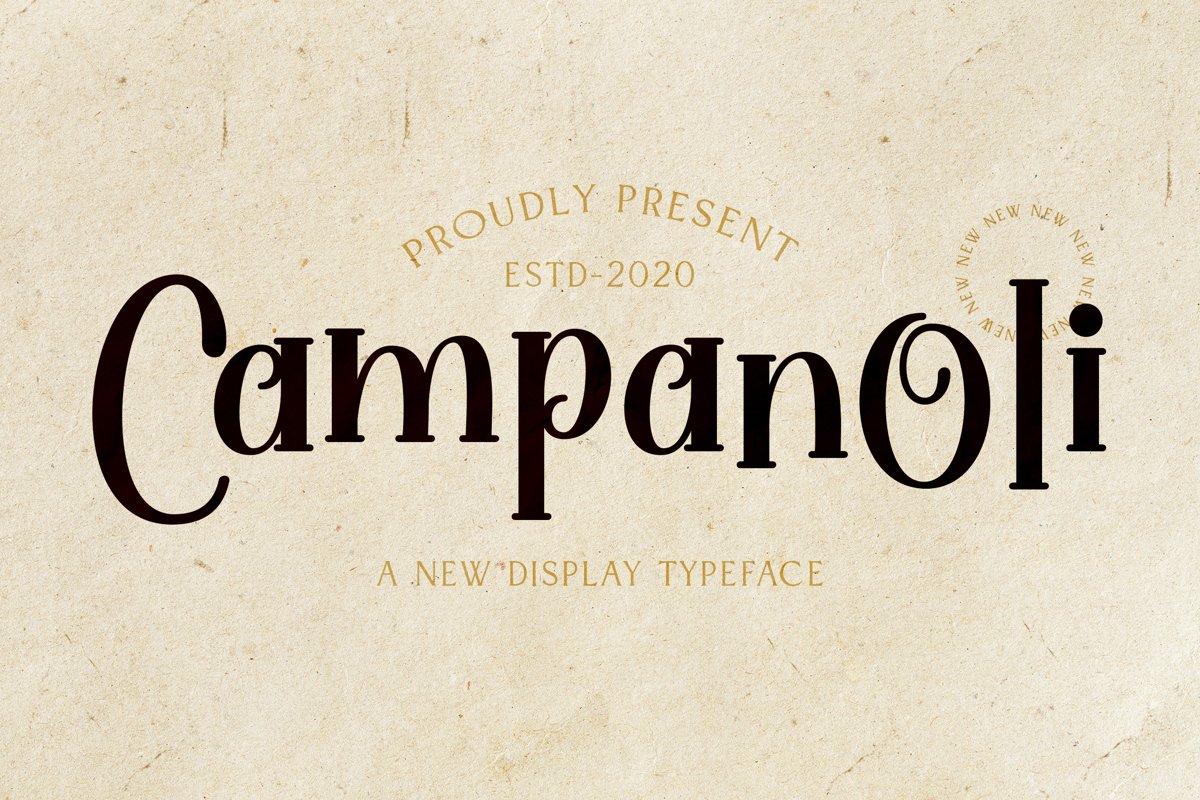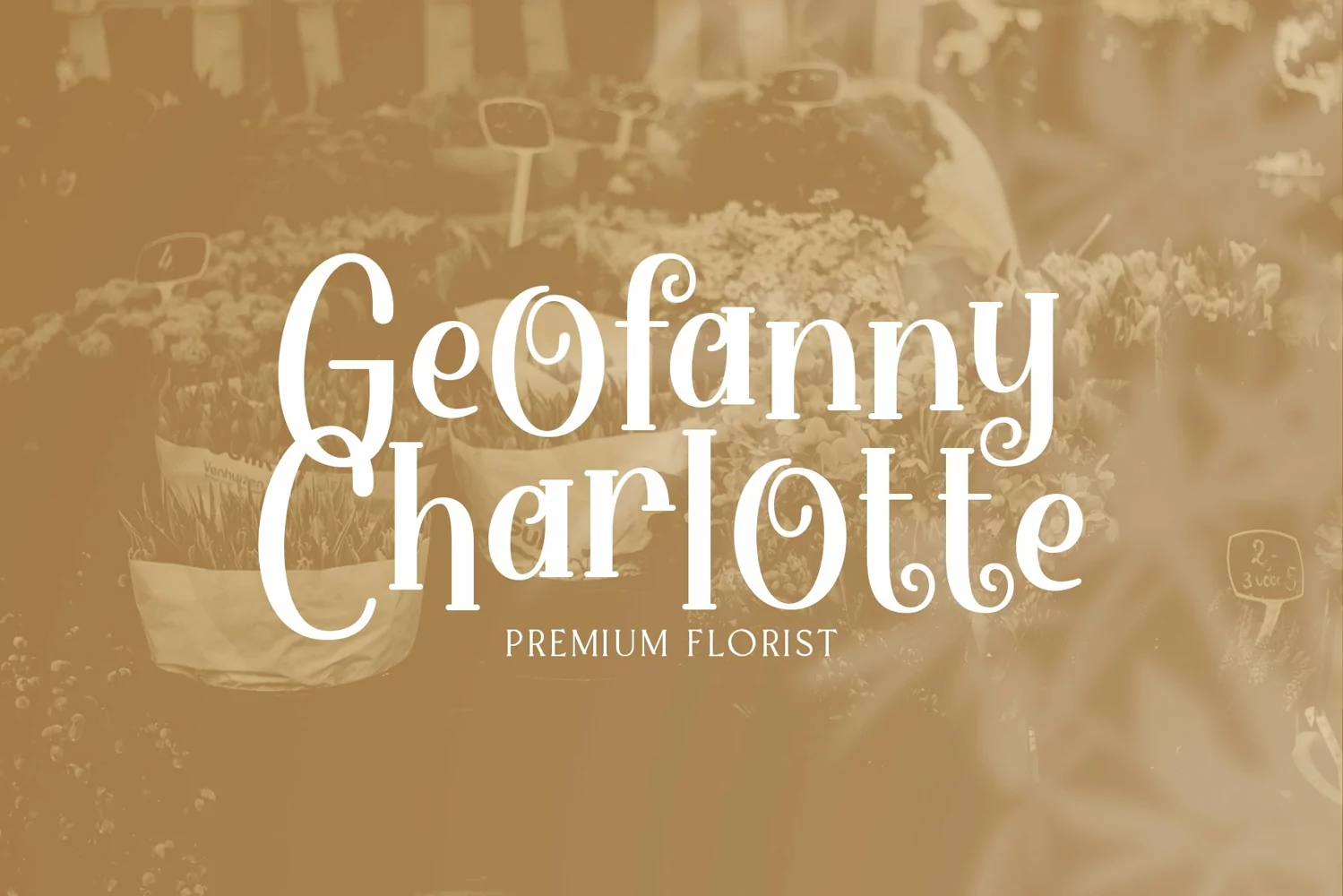
Campanoli is a display typeface. Perfect for display, posters, quotes, packaging, merchandise, logo, logotype, emblem, badges, greeting cards, business card, wedding needs, craft needs, and many more.